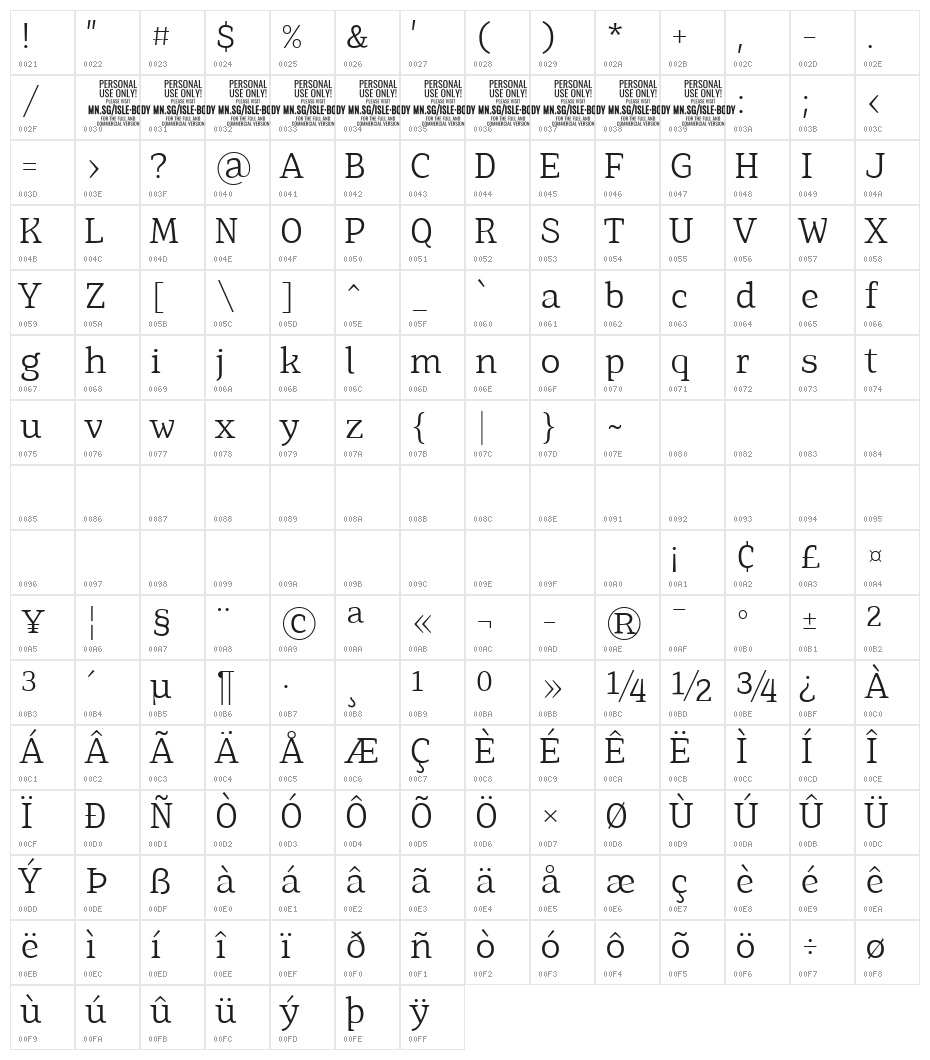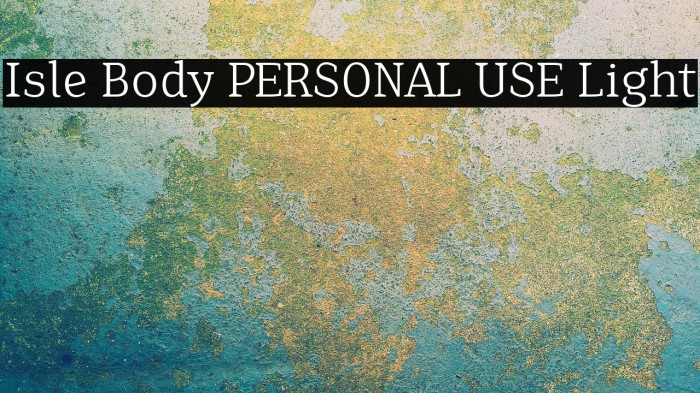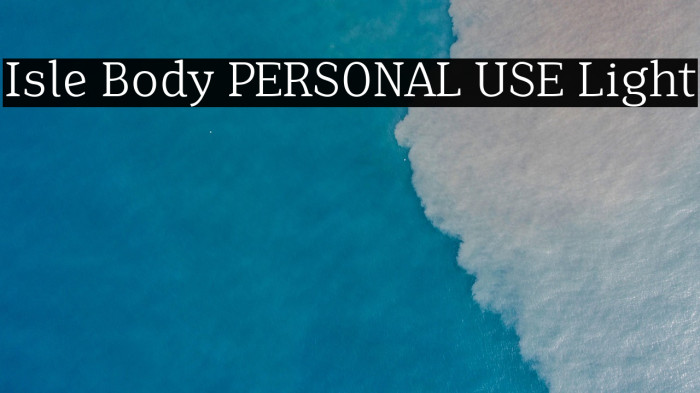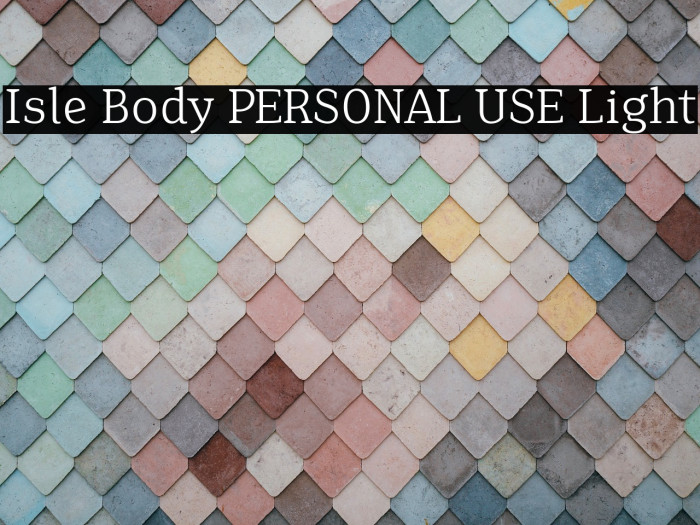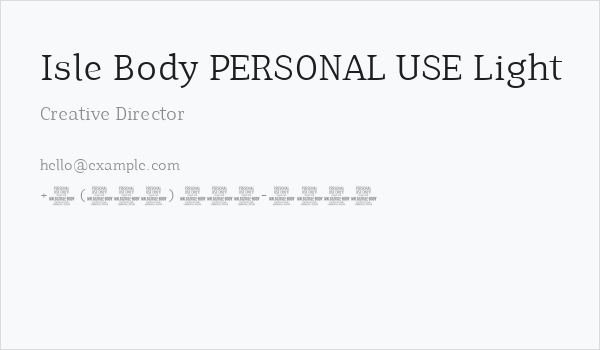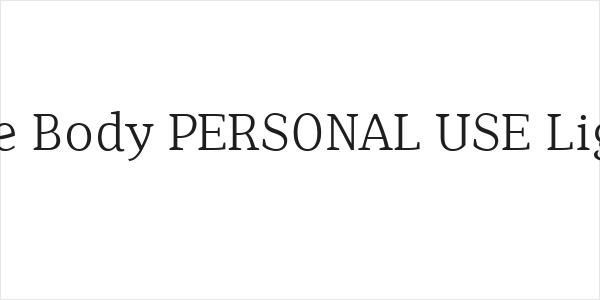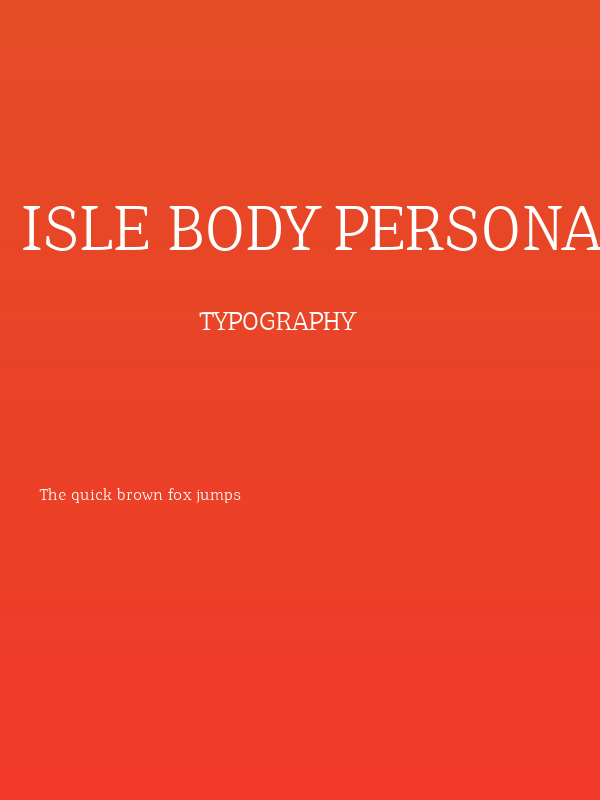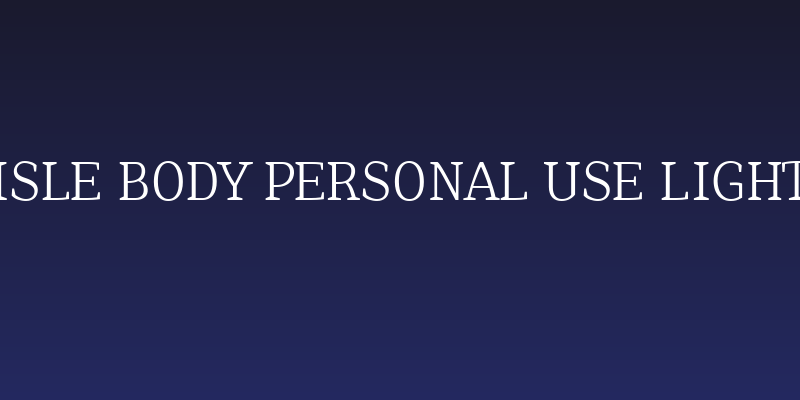
Isle Body PERSONAL USE Light Font
Isle Body PERSONAL USE Light Description
This font features a clean and elegant serif style, characterized by its light weight and classic design. The uppercase letters are tall and slightly narrow, with a subtle flair on the serifs that adds a touch of sophistication. The lowercase letters maintain a consistent height and spacing, ensuring readability and a harmonious appearance. The numerals are proportional and align well with the overall style, while the special characters are distinct and well-formed, making them suitable for various design applications. The font's light weight and refined serifs make it ideal for projects that require a touch of elegance and clarity.
| Use Case | Body text, Headlines, Editorial design |
| Proposed Projects | Ideal for editorial design, book covers, elegant invitations, and branding projects. |